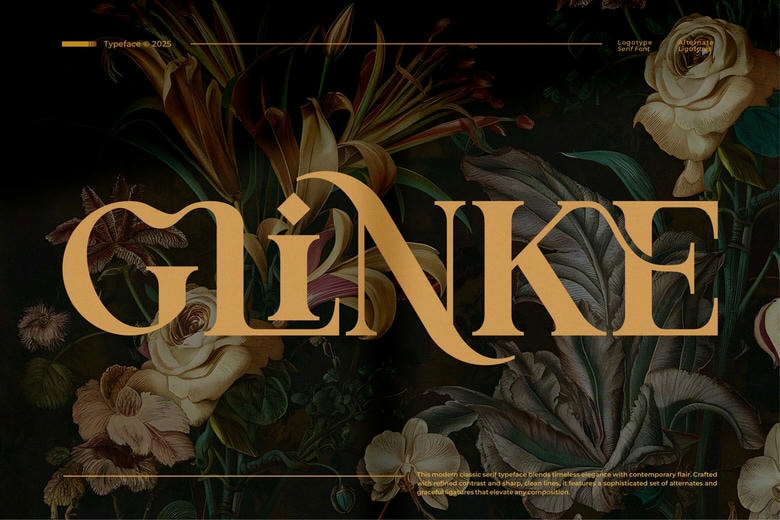
Glinke Font
Glinke Serif is an elegant yet contemporary type of font that fits in all logo and branding designs. So much beauty is given to this font Serif font, which is modern and classy in character. This font can be used to design invitation cards, cool logos, movie titles, movie names, business cards, book titles, brand names and many other designs. Glinke Serif is a round face serif font full of finesse and the moment. This font has stylish ligatures and is the best partner to any project.
Glinke Serif Font